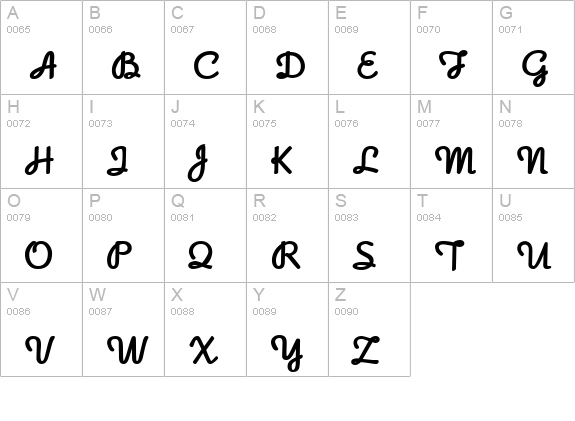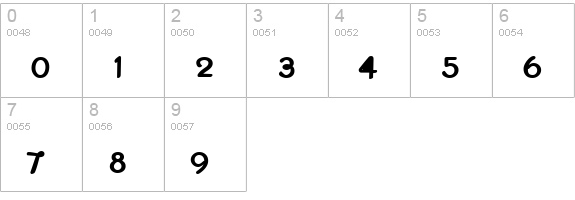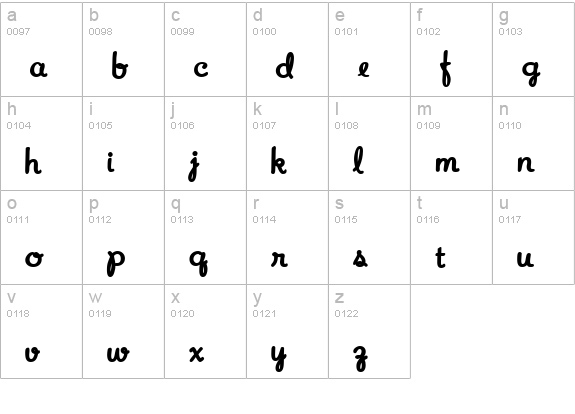
CinemaAisles Font Details
Introducing CinemaAisles font, a captivating and versatile typeface that evokes the nostalgia of classic cinema marquees. With its bold and sleek design, CinemaAisles is perfect for adding a touch of old Hollywood glamour to your projects. Whether you're working on movie posters, film credits, or event announcements, this font is sure to make a statement. What sets CinemaAisles apart is its exquisite attention to detail and its ability to effortlessly capture the essence of the silver screen. The elegant curves and sharp lines of this font will transport your audience to a bygone era of glamour and excitement. And the best part? CinemaAisles is completely free to download at FontsMarket.com. That's right, you can add this stunning font to your collection without spending a dime. So why wait? Bring a touch of cinematic magic to your designs with CinemaAisles font today!